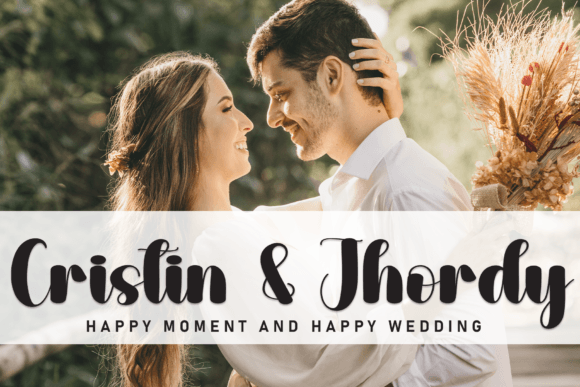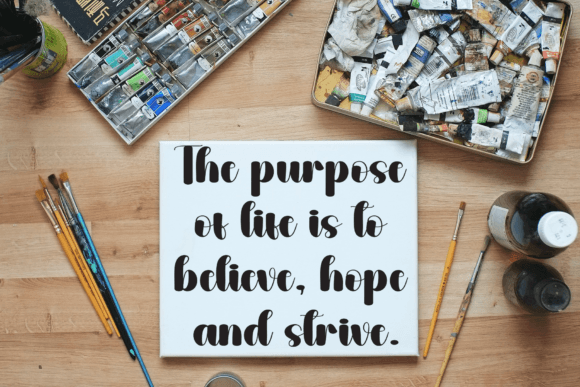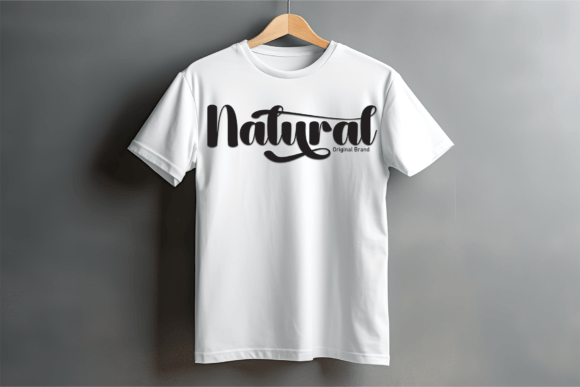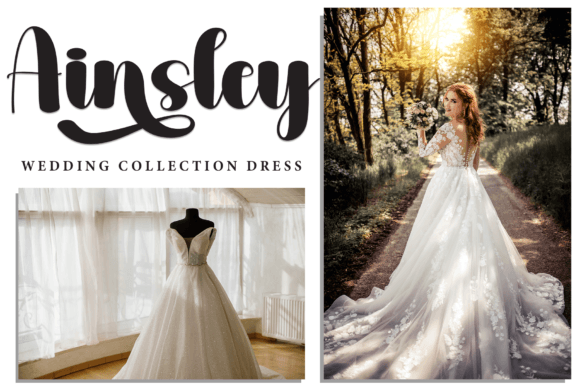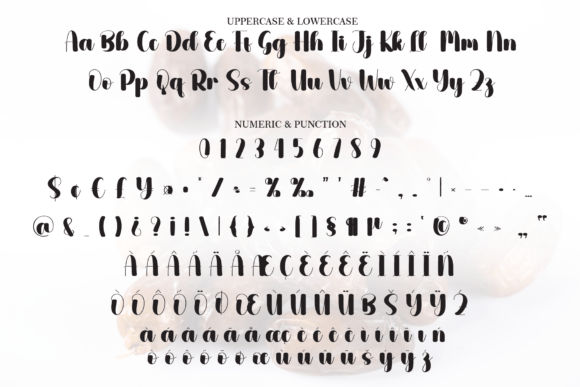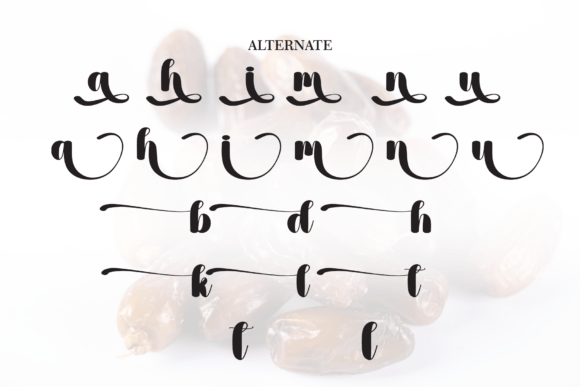
Introduction to Datepalm Font
Remember the moment when you stumbled upon the perfect font for your wedding invitation? The one that made your design come alive with a touch of sweetness and friendliness? For many designers, that moment is a treasure to behold. And if you’re one of them, you’re in luck! In this article, we’ll delve into the wonderful world of Datepalm Font, a high-quality, handwritten font that’s perfect for adding a lovely touch to any creative project.
Whether you’re designing a wedding invitation, a card, or any other design that requires a personal touch, Datepalm Font is an excellent choice. Its fresh and casual vibe makes it an ideal design resource for any creative project. Plus, with a transparent background, you can easily customize it to fit your needs. And the best part? Datepalm Font is available for free download, making it a valuable asset for designers of all levels.
Key Features of Datepalm Font
- High-quality, professional design suitable for creative projects
- Transparent background, ideal for designs requiring a clear background
- Unique characteristics: elegant, modern, and minimalist aesthetic
- Perfect design resource for logos, branding, and packaging materials
Honest Review: Datepalm Font
I recently had the chance to try out the Datepalm Font, and I must say it’s a unique and stylish addition to any creative project. As a designer, I appreciate high-quality fonts that can elevate a design and add a touch of sophistication. The Datepalm Font definitely delivers on this front.
- ✨ The font’s elegant script style makes it perfect for wedding invitations, luxury branding, and other high-end designs.
- ✨ The transparent background option allows for seamless integration with other design elements, giving you complete control over the look and feel of your project.
- ⚠️ The font may not be suitable for casual or informal designs, as it’s quite formal and elegant.
- ⚠️ Some users may find the font’s script style a bit too ornate or busy for certain applications.
Overall, I’m impressed with the Datepalm Font’s versatility and style. While it may not be the perfect fit for every design project, it’s definitely a valuable addition to any designer’s toolkit. If you’re looking for a high-quality font to add some sophistication to your creative project, the Datepalm Font is definitely worth checking out.
Tips for Getting the Most Out of Datepalm Font
The Datepalm Font is a versatile design resource that can be used in a variety of creative projects, including brochures, posters, and business cards. Its high-quality design and transparent background make it an ideal choice for designers who want to create a professional-looking design.
Yes, the Datepalm Font features a transparent background, making it an ideal choice for designers who want to create visually appealing and custom designs. This feature allows for easy layering and blending with other design elements.